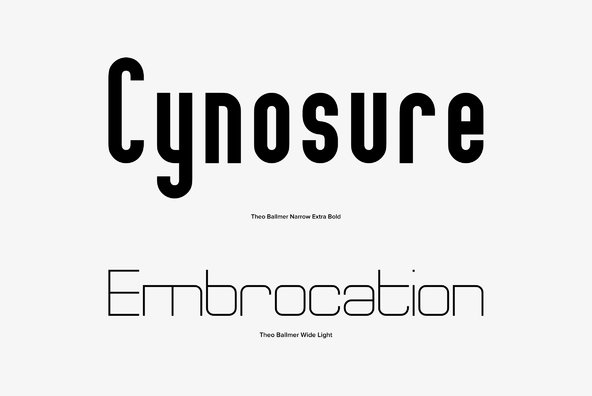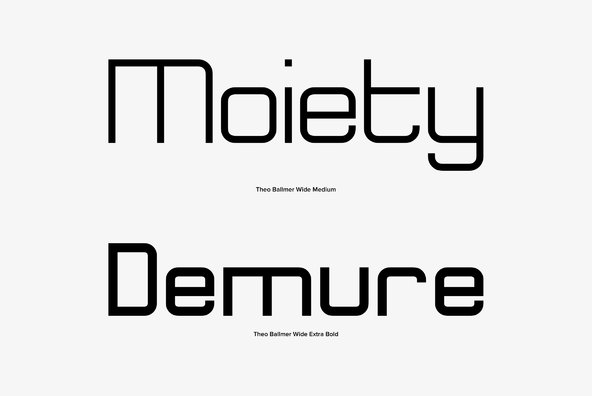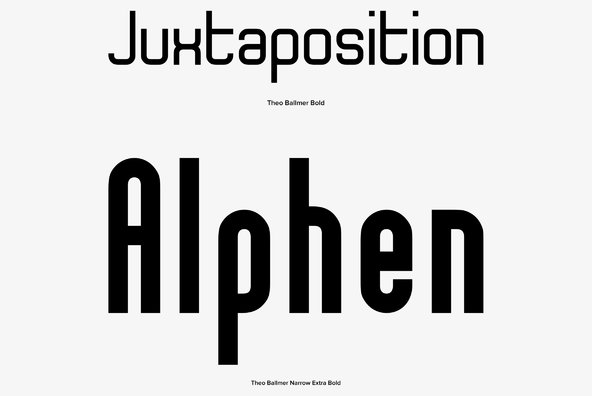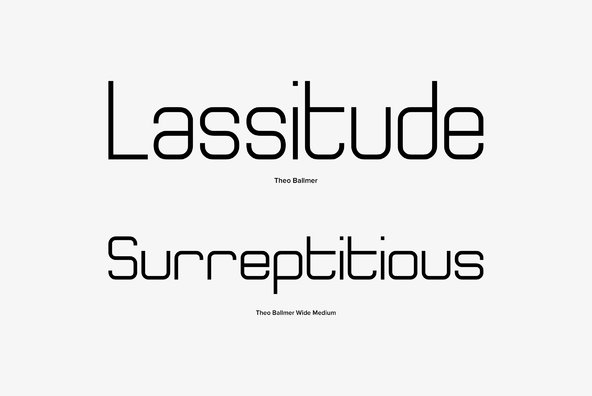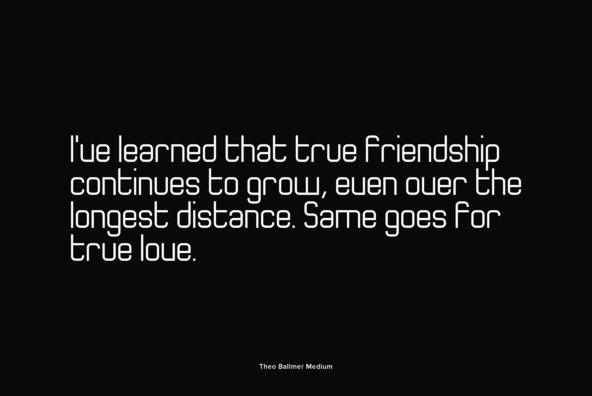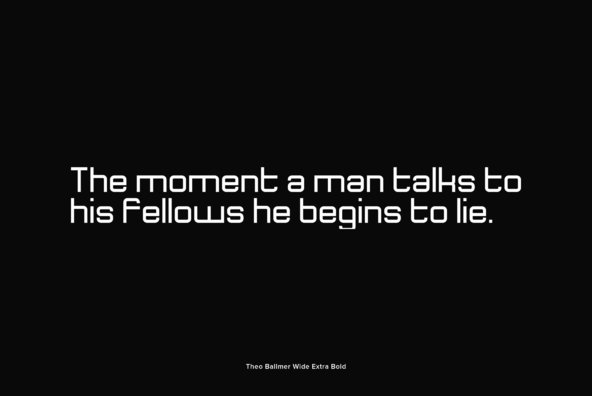
The Theo Ballmer font family is based on Theo's design ideas which were completed by his son Theo Ballmer (Thierry's father), and digitized by Thierry, with the help of URW++ and their Ikarus technology.
The Theo Ballmer font family is based on Theo's design ideas which were completed by his son Theo Ballmer (Thierry's father), and digitized by Thierry, with the help of URW++ and their Ikarus technology. Theo Ballmer is available in 3 x 5 variants: condensed, regular, expanded each in 5 weights. Theo Ballmer is a masterpiece, which fills a historical gap and provides a real font family from the Bauhaus era.